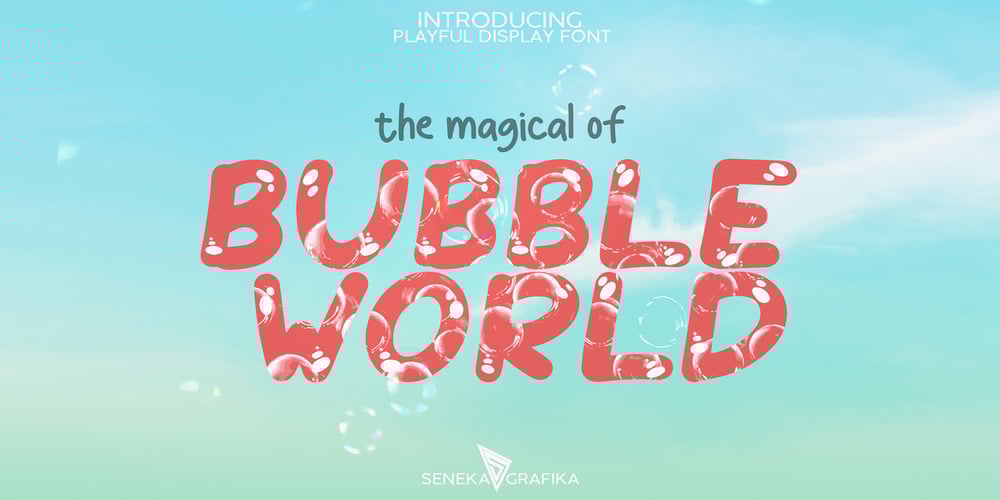
Bubble World Font Family was designed by Fikri Irsvansyah and published by Senekaligrafika. Bubble World contains 1 styles and family package options. “Birthday Party” is a playful handwriting font special for childish display,that puts a smile on your project and will inspire you to create something fun and memorable.It is perfect for greeting card, headings, flyer, product packaging, book cover, printed quotes, logos, etc.”Birthday Party” will help you to create special and touching typographical design for childish projects, for every day or the happiest day in life, summer vacations, baby shower, happy birthday cards and many more. It is really universal and modern font. The owner of endless possibilities!